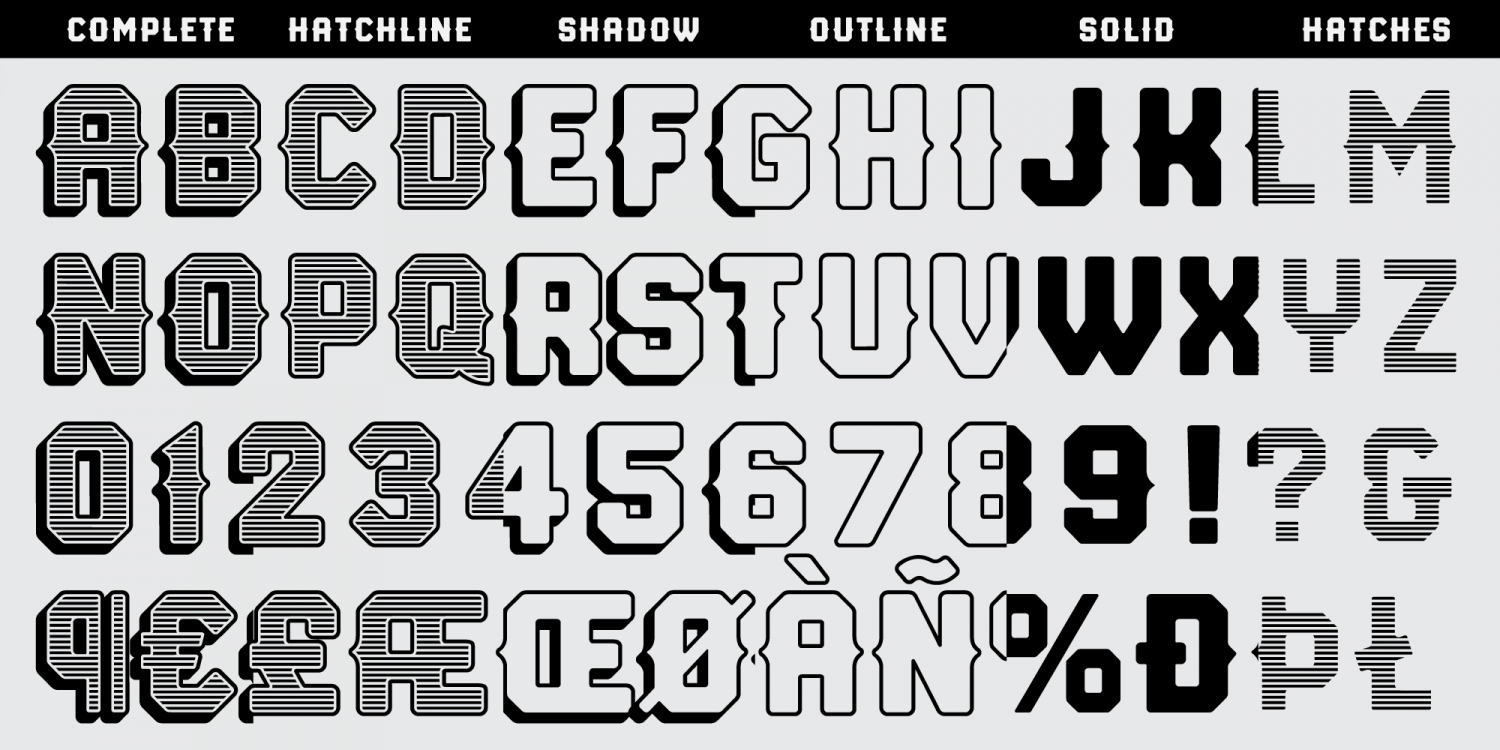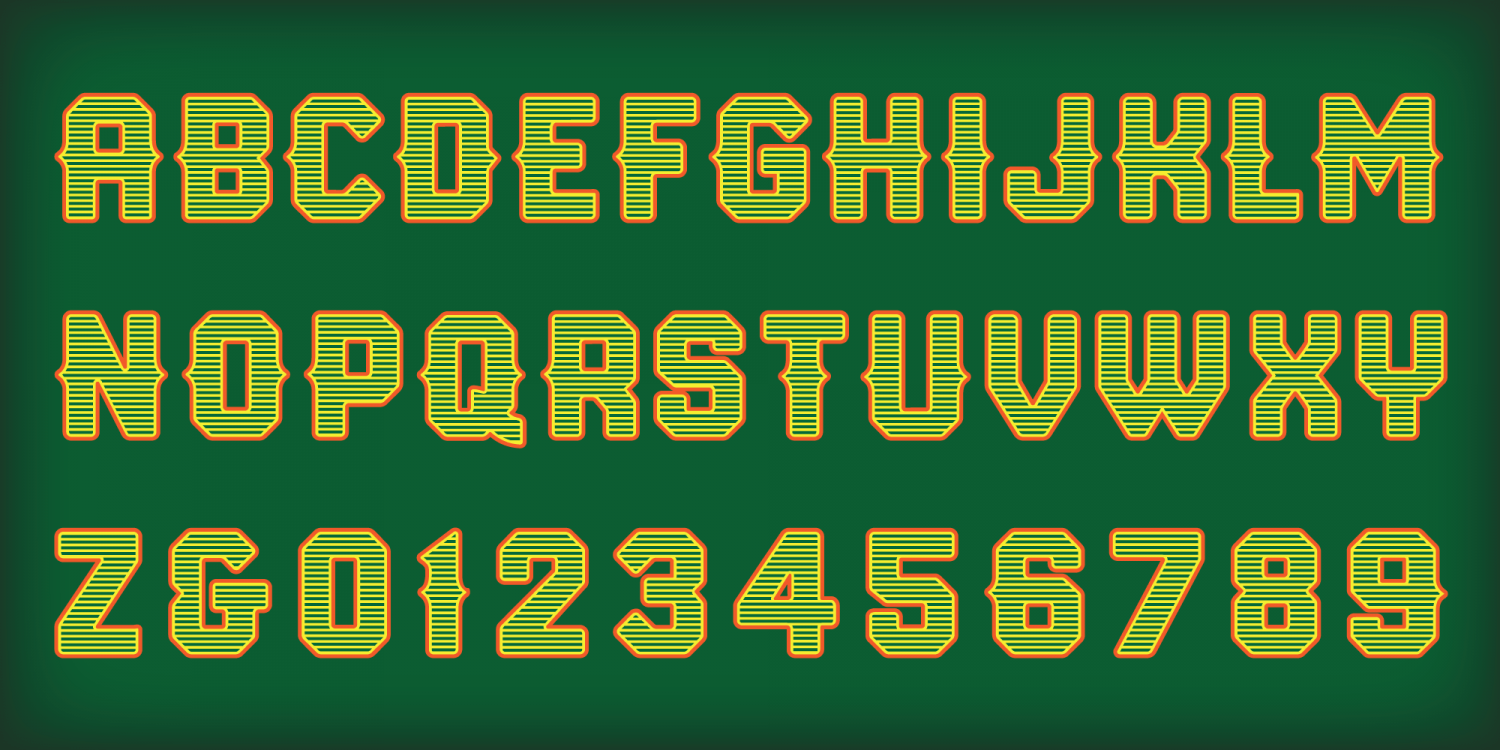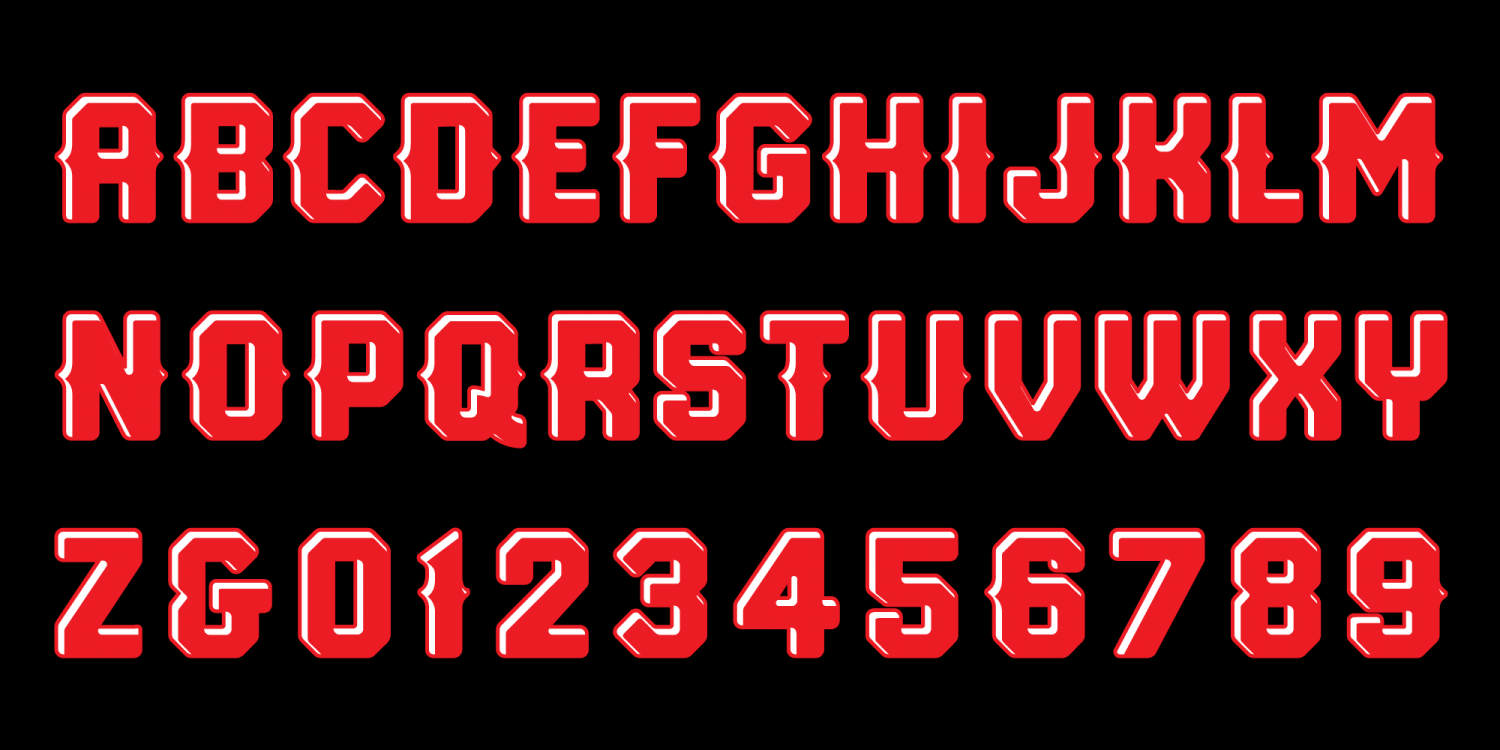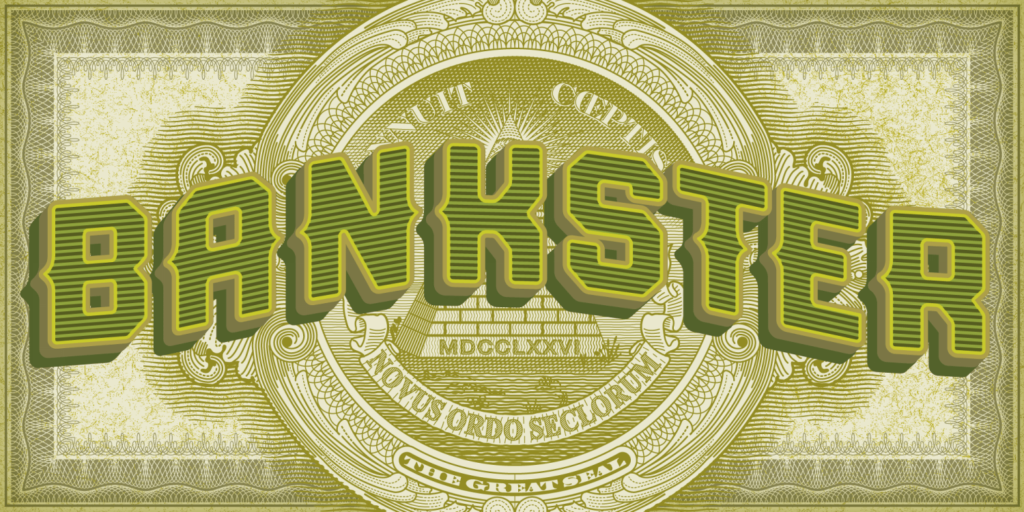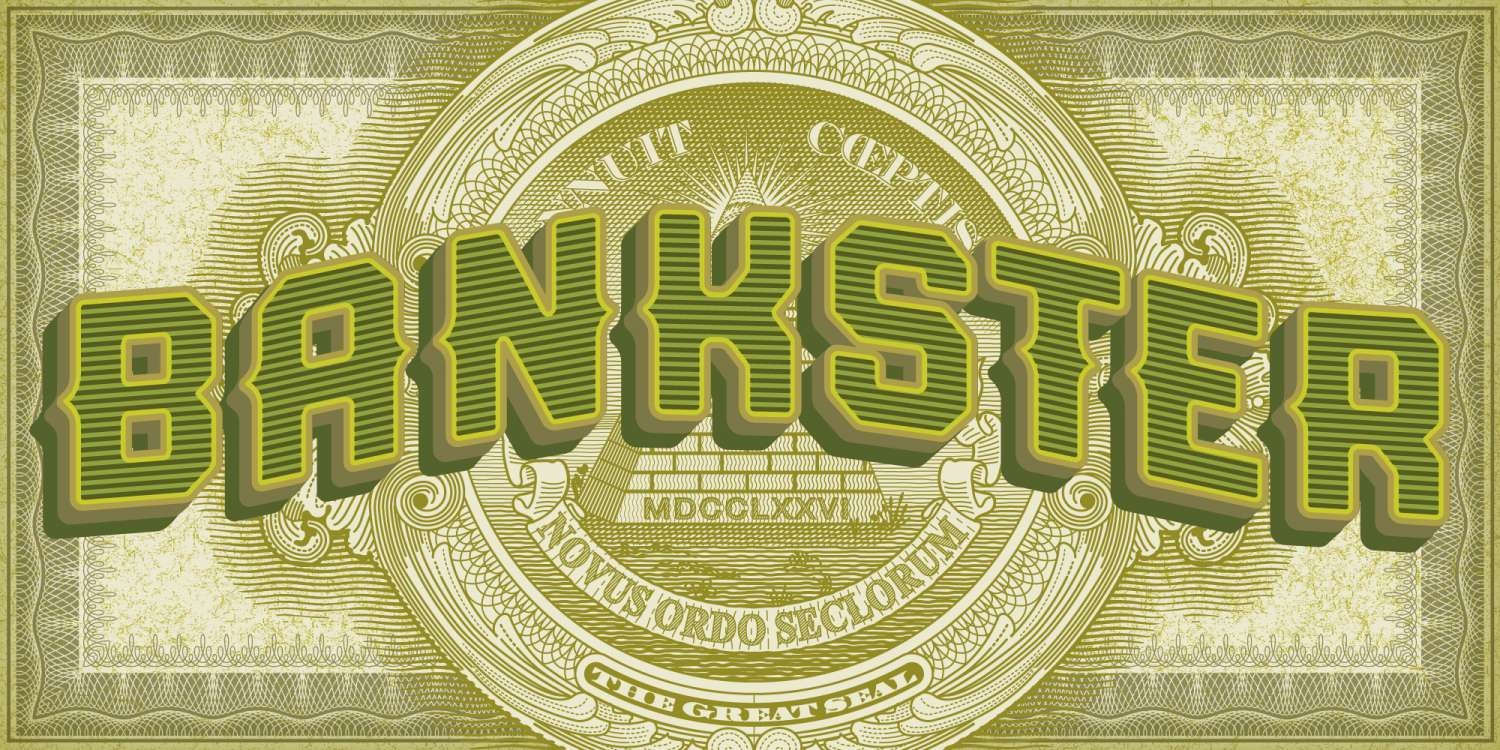
About Bankster
With it\’s origins in a hand-lettered headline about money managers, Bankster is an alphabet meant to evoke the feelings of currency or financial documents. Multiple styles facilitate the perfectly registered layering of components in a variety of color…